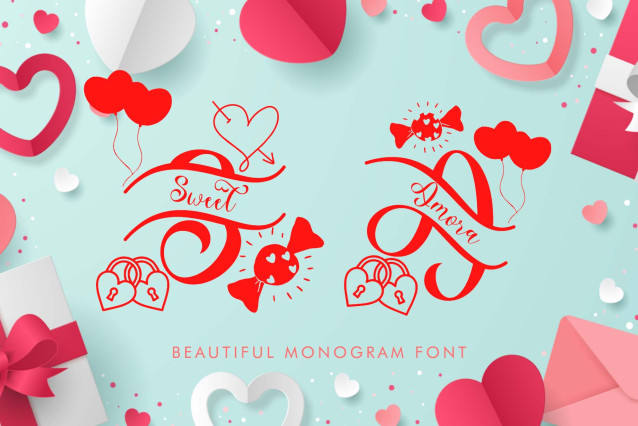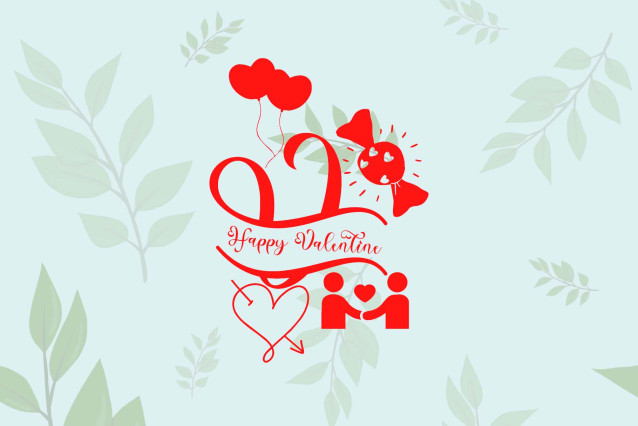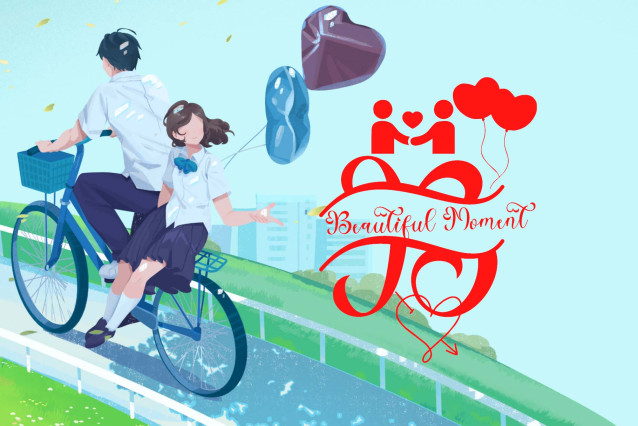
Sweet Amora Monogram Font
“Sweet Amora Monogram” is a beautiful and lovely monogram font. Available in regular and italic styles, it features monograms, uppercase and lowercase letters, numerals, punctuations, and multilingual support. It’s perfect for Christmas, Valentine’s Day, weddings, invitations, gifts, prints, winter logos, stickers, holidays, vacations, summer, and more.